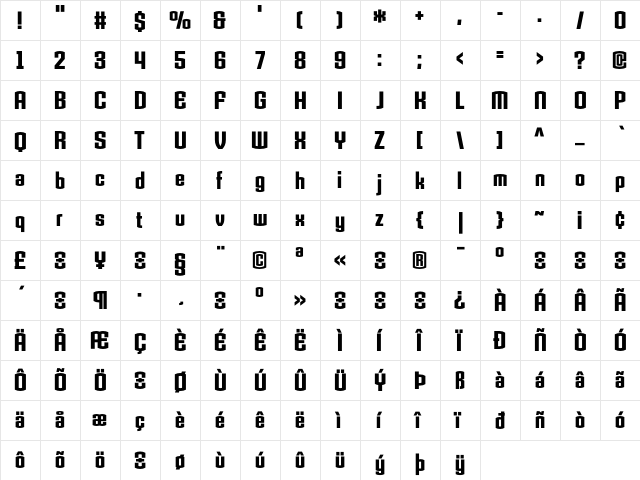
Armada BoldCondensed Font Preview
Armada BoldCondensed
Design Context for Armada Typeface
Armada offers clean, dependable letterforms without strong stylistic allegiance, making it a practical choice for designers who need flexibility. Its bold stroke weight gives it real presence on the page. Its narrow stance lets it pack a punch even in space-constrained designs.